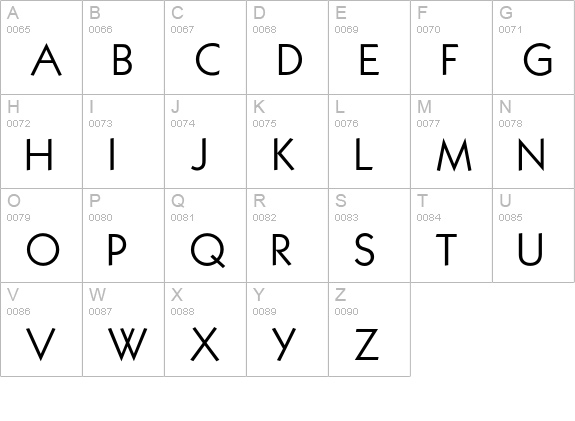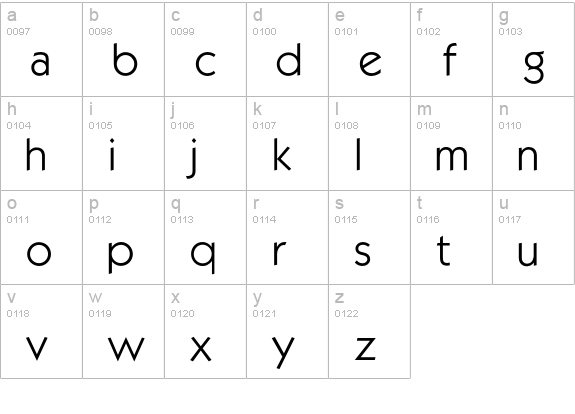
KabelBook Font Details
Introducing KabelBook, a captivating and versatile font that effortlessly combines elegance with modernity. With its clean lines and refined curves, KabelBook is perfect for adding a touch of sophistication to any project. Whether you're designing a logo, creating captivating headlines, or crafting eye-catching invitations, this font is sure to make a lasting impression. What sets KabelBook apart from the rest is its incredible versatility. It seamlessly adapts to various design styles, effortlessly capturing attention and conveying your message with clarity. The balanced letterforms and harmonious spacing ensure legibility across different mediums, making it an excellent choice for both print and digital applications. But what truly makes KabelBook stand out is its accessibility. We understand the importance of having access to high-quality fonts without breaking the bank. That's why we're delighted to announce that KabelBook is available for free download at FontsMarket.com. Yes, you read that right - this stunning font can be yours without spending a dime. By offering KabelBook as a free font, we aim to empower designers, artists, and creatives of all kinds to bring their visions to life without the burden of costly licensing fees. We believe that everyone deserves access to high-quality typographic tools, and KabelBook exemplifies our commitment to making design resources readily available to all. So, whether you're a seasoned professional or an aspiring designer, KabelBook is here to elevate your projects to new heights. Download this exceptional font from FontsMarket.com and unlock a world of possibilities. Let KabelBook be your creative companion, enhancing your designs with its timeless elegance and captivating charm.